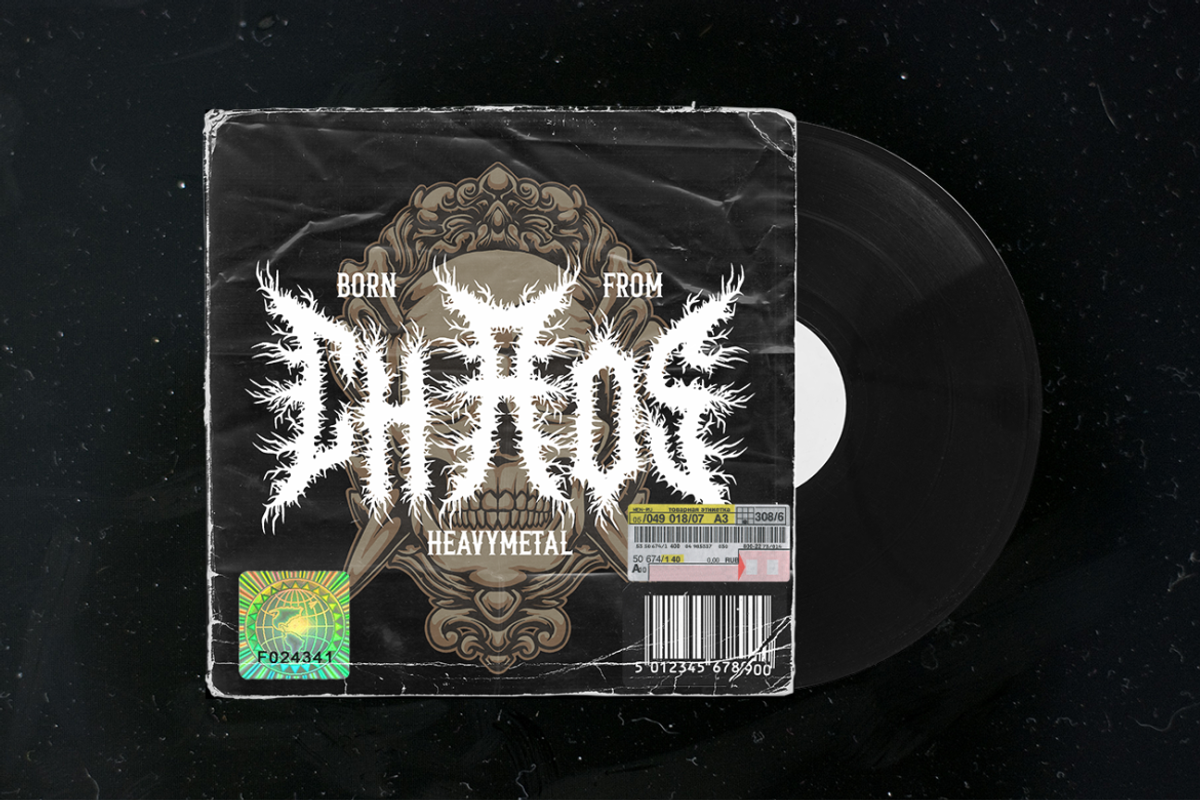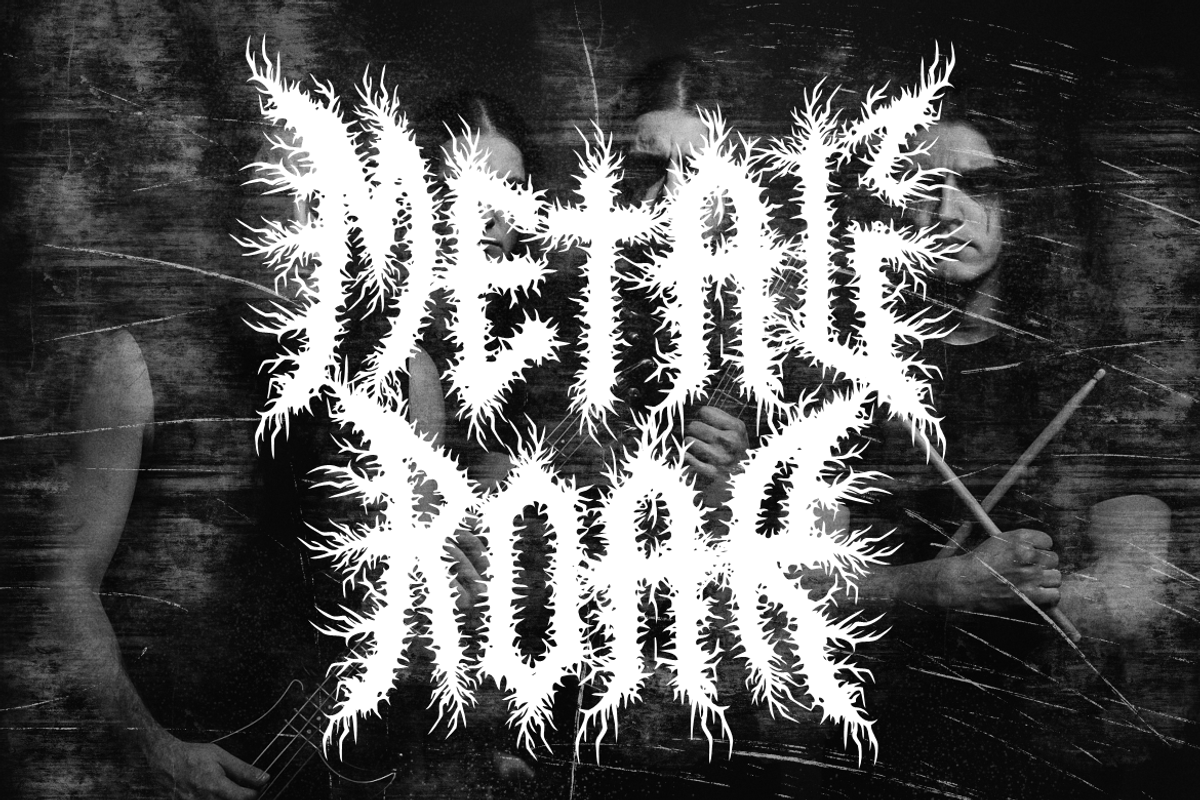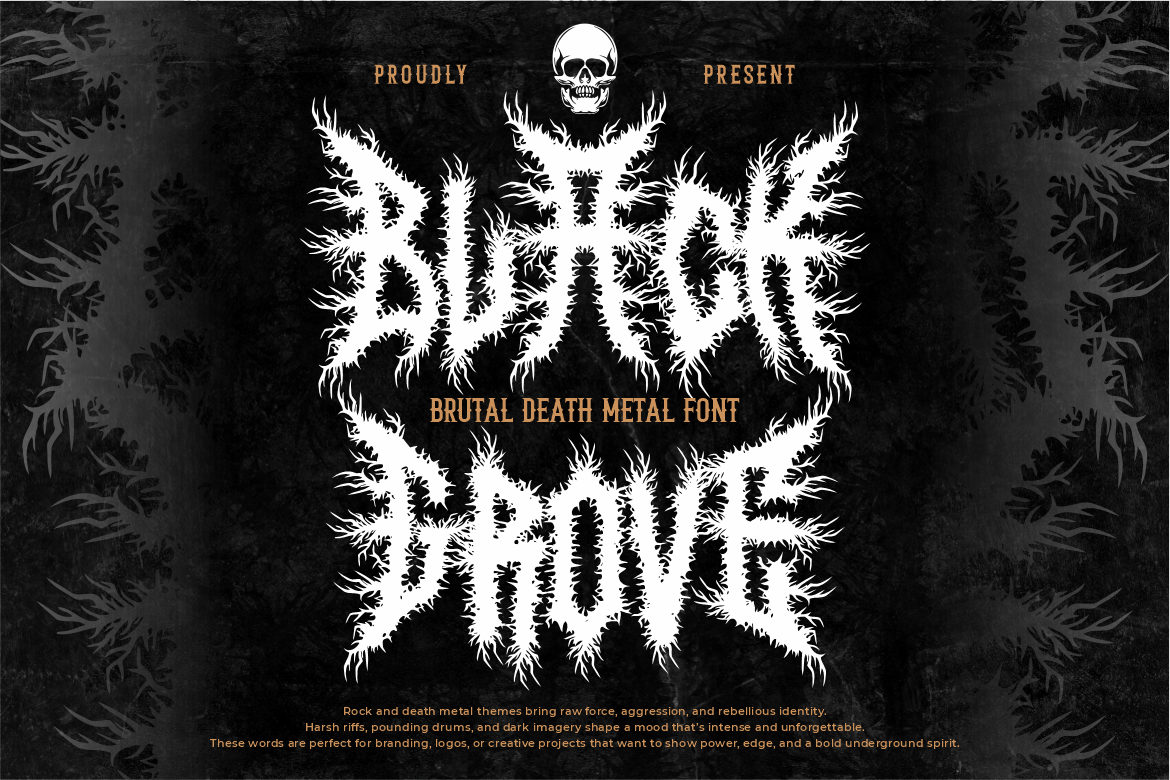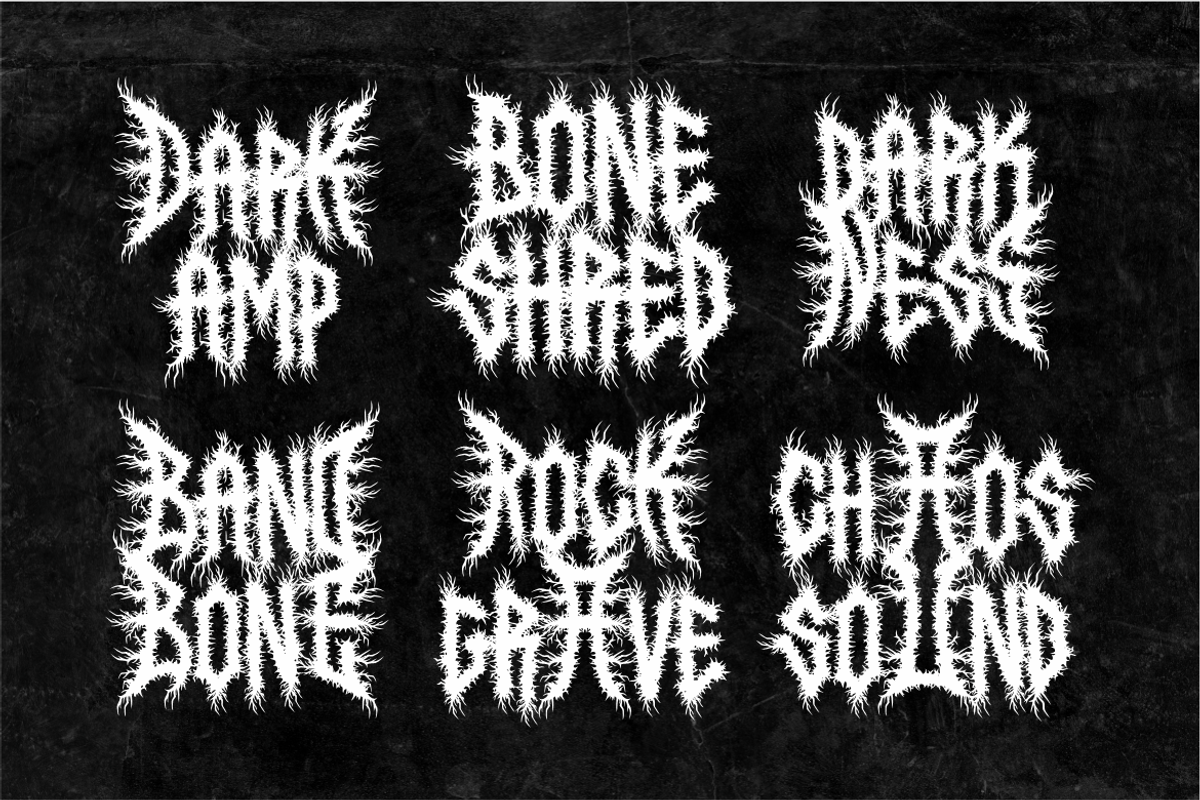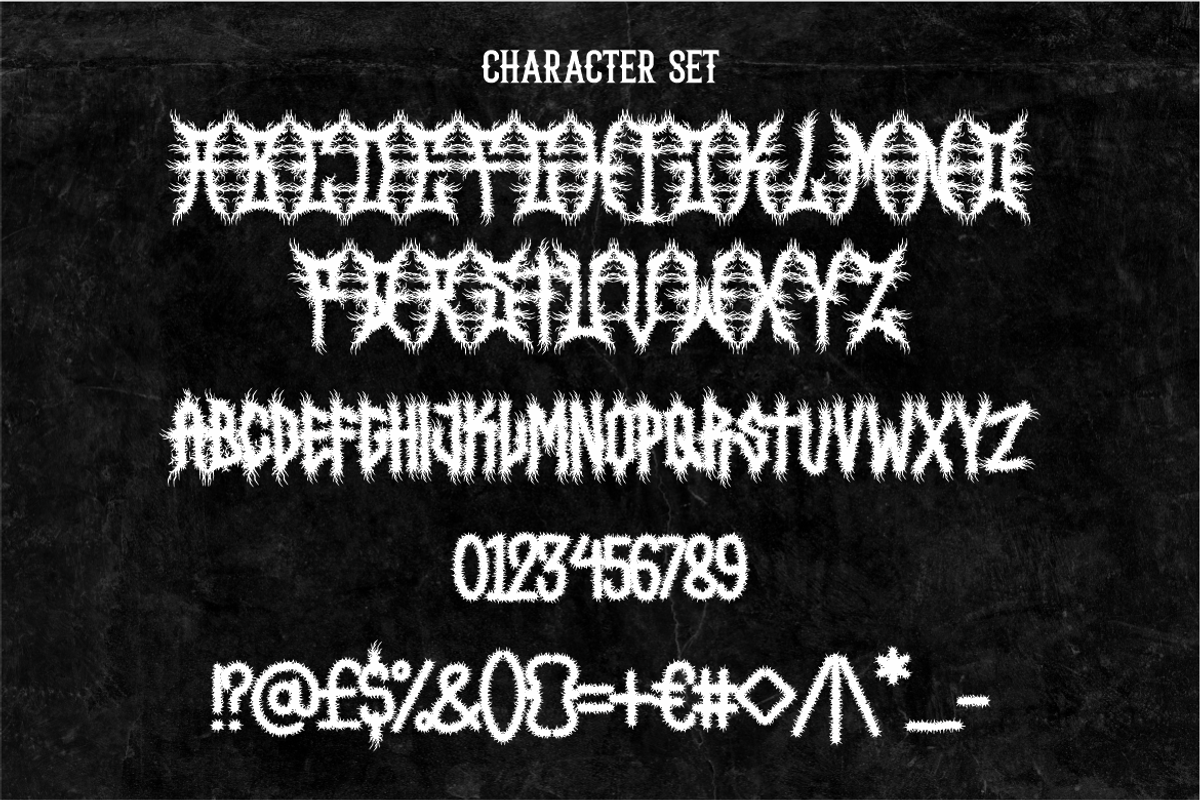
Black Grove Extreme Black Metal Font
Black Grove Extreme Black Metal Font is a highly aggressive display typeface designed with sharp, thorn-like extensions and dense letter structures. Each character appears jagged and feral, with irregular strokes that feel organic and hostile. The letterforms are bold and compact, yet filled with fine spiked details that stretch outward like roots or thorns. Stroke weight remains consistently heavy, while edges stay rough and intentionally uncontrolled. This structure creates a chaotic rhythm that reinforces intensity and visual violence. The font carries a strong underground identity, inspired by blackletter foundations but pushed into an extreme black metal direction. Shapes are tall and narrow, with dramatic vertical emphasis that enhances dominance and menace in every word.
Black Grove Extreme Black Metal Font works best in projects that demand a dark, brutal, and uncompromising tone. It is ideal for band logos, album covers, music merchandise, event posters, and hardcore branding. The aggressive silhouette ensures strong visibility at large sizes, especially for headlines and logos. Designers can also use it for horror movie titles, underground zines, extreme sports graphics, and rebellious apparel designs. Despite its chaotic style, spacing remains controlled enough to maintain legibility in short phrases. Black Grove Extreme Black Metal Font delivers a powerful identity for creators who want to express darkness, aggression, and raw energy without compromise.